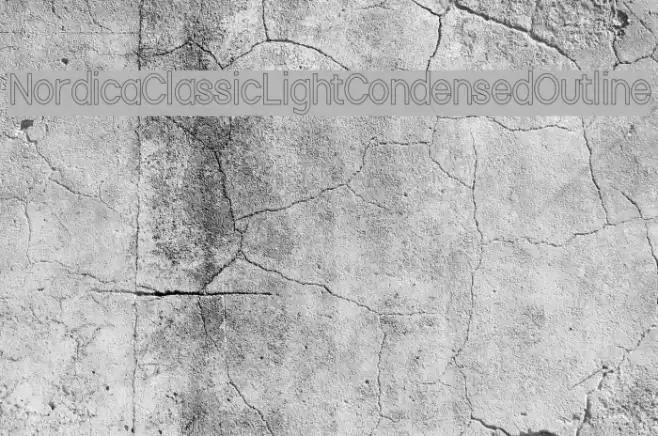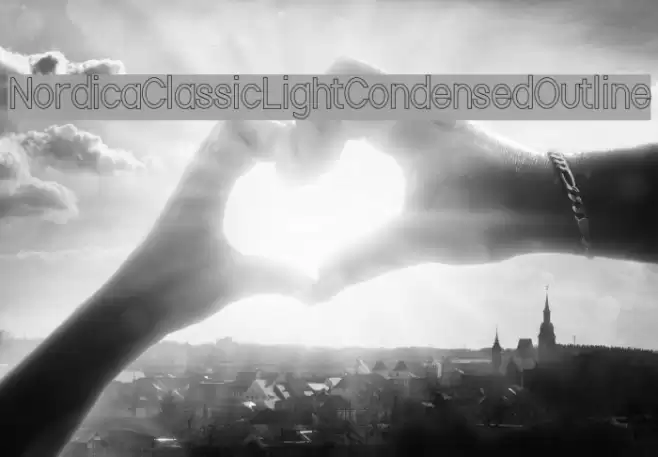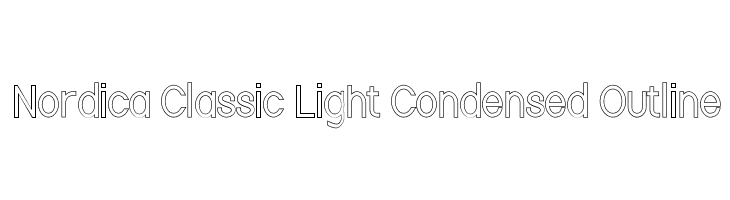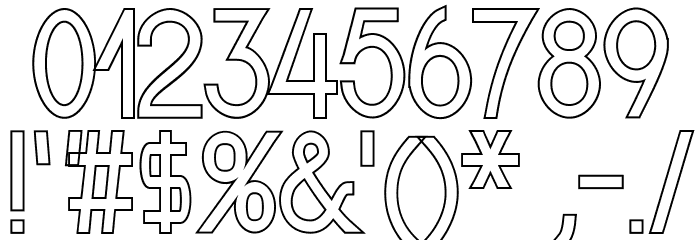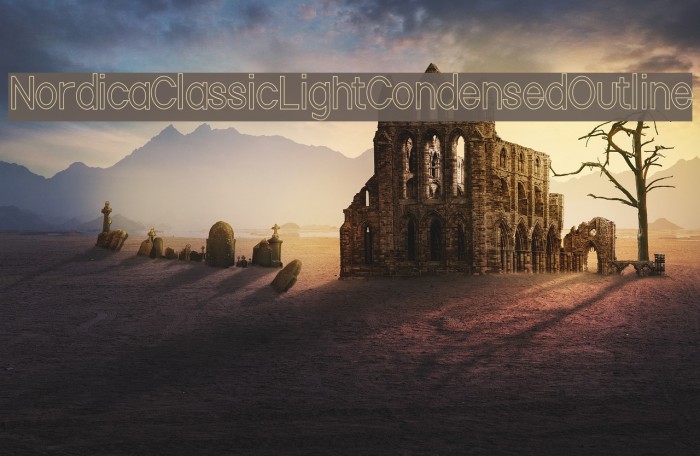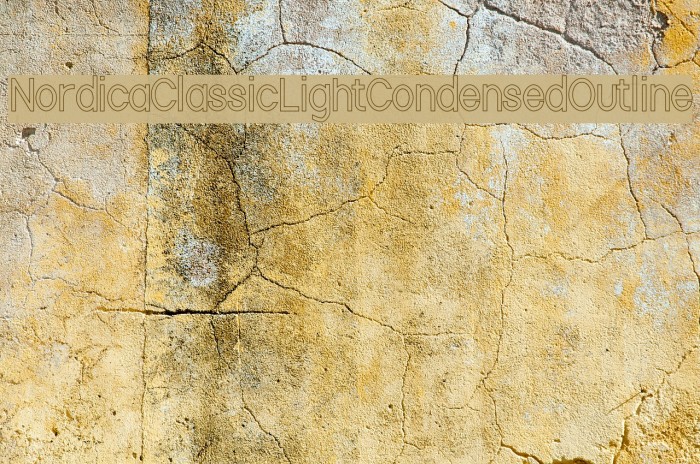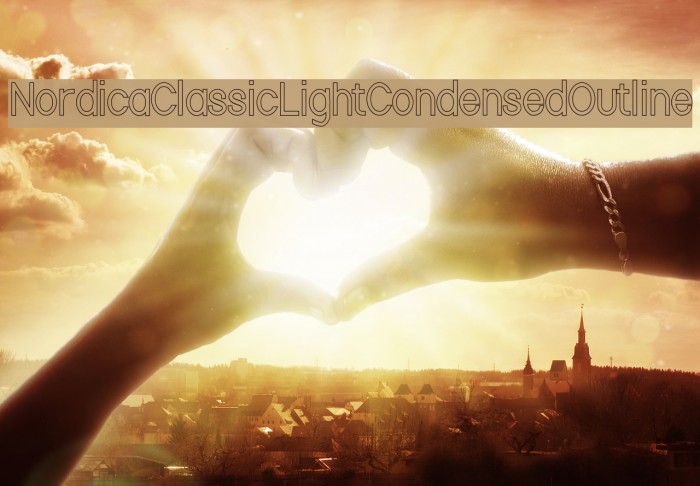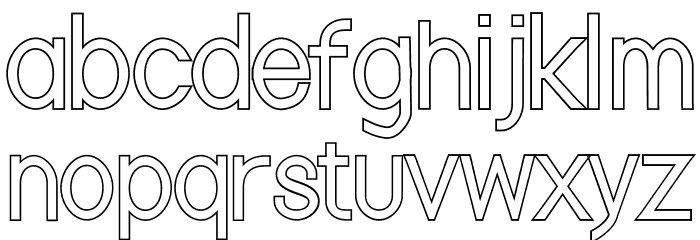
Nordica Classic Light Condensed Outline Font
Nordica Classic Light Condensed Outline Description
This font features a clean and modern design with an outline style that gives it a distinctive and airy appearance. The characters are condensed, providing a sleek and efficient use of space, making it ideal for projects where space is a premium. The uppercase and lowercase letters maintain a consistent height, contributing to a uniform look. The numerals and special characters are designed to match the overall style, ensuring a cohesive appearance across all text elements. The font's light weight and outline style make it suitable for creative and artistic projects where a subtle yet impactful presence is desired.
A modern, condensed outline font with a clean and airy design from Uncategorized fonts.
- Proposed Projects: Ideal for branding, posters, headlines, and artistic designs where a modern and airy look is desired.